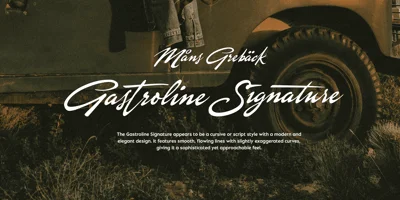
Gastroline Signature Font
Gastroline Signature Font is perfect for automotive dealership branding, classic car show signage, vintage gas station designs, motorcycle club logos, retro diner menus, automotive museum displays, car repair shop materials, racing team merchandise, vintage vehicle magazines, road trip campaign graphics, and any project that requires authentic automotive character with vintage road culture appeal.
What makes Gastroline Signature Font exciting is its compelling ability to capture the golden age of American road culture and automotive heritage through flowing script letterforms that embody the freedom of the open road and classic car enthusiasm. This nostalgic typeface features signature-style curves with vintage automotive flair that evoke the romance of cross-country road trips and the craftsmanship of classic American automobiles. The font's automotive character adds instant vintage credibility and road culture appeal to any design, making it perfect for brands celebrating automotive heritage and classic car culture.
Gastroline Signature Font comes in multiple font families including Regular, Bold, Light, Condensed, Script, and Classic variations, providing designers with comprehensive options to create automotive compositions and achieve the perfect vintage road aesthetic for car-focused design projects.
Whether you're developing automotive brand identity, creating classic car event materials, or designing vintage road culture campaigns, Gastroline Signature Font offers the perfect solution for projects demanding authentic automotive character and vintage road sophistication. This nostalgic typeface excels in display applications where automotive presence is essential, ensuring your designs communicate classic car passion and road culture authenticity. The flowing character and automotive styling of Gastroline Signature Font make it an indispensable tool for designers who prioritize automotive heritage, vintage car culture, and classic American road traditions in their typographic selections.